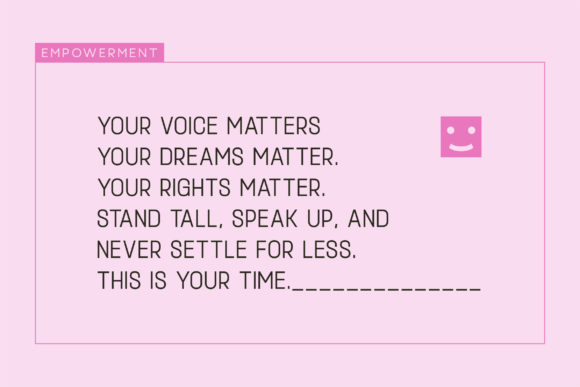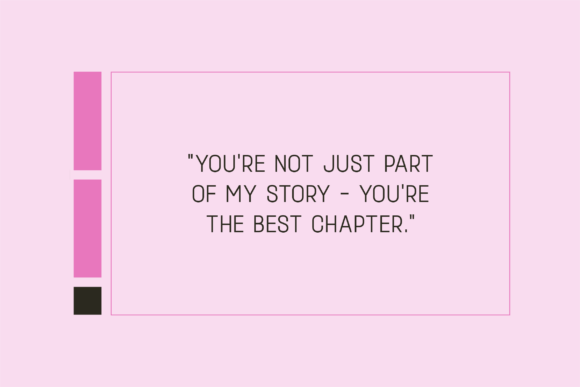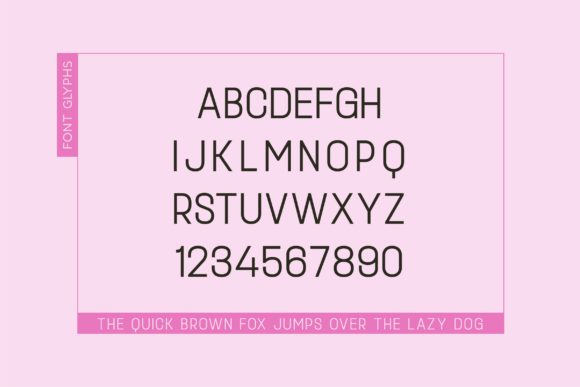
Introduction to Prettier Font
As designers, we’ve all been there – staring at a blank canvas, searching for the perfect font to bring our creative project to life. The search is over with the introduction of the Prettier Font, a game-changing sans serif typeface designed to make a statement. Its clean lines, minimalist aesthetic, and bold all-caps design ensure maximum impact, making it the ultimate design resource for professionals.
Whether you’re working on a high-end branding project, designing a website, or creating print materials, the Prettier Font is the perfect choice. With its geometric structure and transparent background, it’s versatile enough to work seamlessly in digital interfaces, and its readability makes it ideal for headlines and posters. The best part? You can download it for free, giving you the freedom to experiment and create without limitations.
Prettier Font: A High-Quality Design Resource
- High-resolution design font with transparent background, ideal for creative projects
- Perfect for designers and artists seeking a unique, high-quality font for their designs
- Unique, elegant design makes it perfect for branding, logos, and other creative projects
Honest Review: Prettier Font
I recently stumbled upon the Prettier Font, and I must say, it’s been a game-changer for my creative projects. As a designer, I’m always on the lookout for high-quality design resources that can elevate my work.
- ✨ Wide range of styles and formats: The Prettier Font offers a diverse collection of fonts, including serif, sans-serif, and script styles, making it an excellent addition to any design resource library.
- ✨ High-quality design: Each font is meticulously crafted to ensure that it’s not only aesthetically pleasing but also scalable and versatile.
However, I do have a few minor complaints:
- ⚠️ Limited transparency options: While the font itself is beautiful, the transparent background option could be improved to provide more flexibility for designers working with layered compositions.
Overall, I’m thoroughly impressed with the Prettier Font, and I highly recommend it to any designer working on creative projects. Its high-quality design, versatility, and free download make it an excellent addition to any design resource library.
Prettier Font: A High-Quality Design Resource for Creative Projects
The Prettier Font is ideal for creative projects, such as graphic design, branding, and typography. Its high-quality design and transparent background make it perfect for use in logos, business cards, and other design materials.
Tips for Getting the Most Out of Prettier Font
To get the most out of the Prettier Font, use it in combination with other design elements, such as images and shapes. Experiment with different font sizes and colors to create a visually appealing design. Additionally, use the font’s transparent background to create a seamless design that blends with other elements.
Is the Prettier Font suitable for high-resolution designs?
Yes, the Prettier Font is designed to be high-quality and scalable, making it perfect for use in high-resolution designs, such as logos, icons, and graphics for digital and print projects. Our font is optimized for use at various sizes and resolutions, ensuring it remains crisp and clear in your final design.